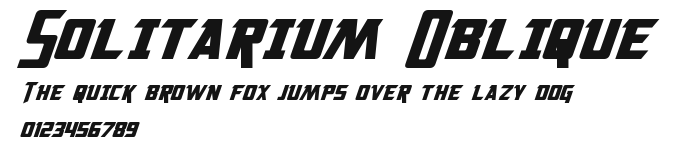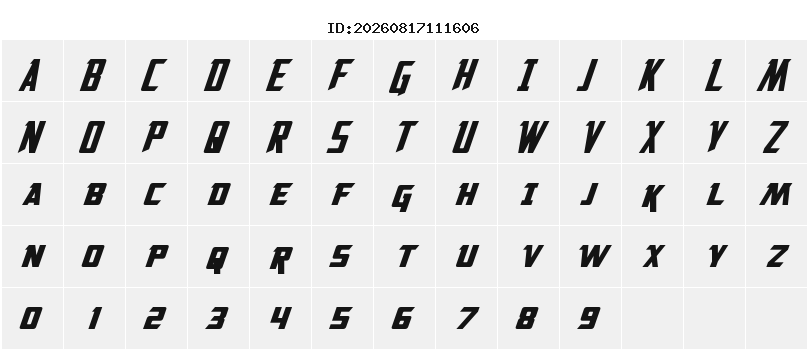
Solitarium Oblique Preview
• Font Name: Solitarium Oblique
• Full Font Name: Solitarium Oblique
• Designer: Neale Davidson
About Solitarium Oblique.ttf
Solitarium Oblique.ttf is a modern, elegant sans-serif font designed for ultimate readability and visual harmony. Perfect for branding, headlines, web design, and print materials.